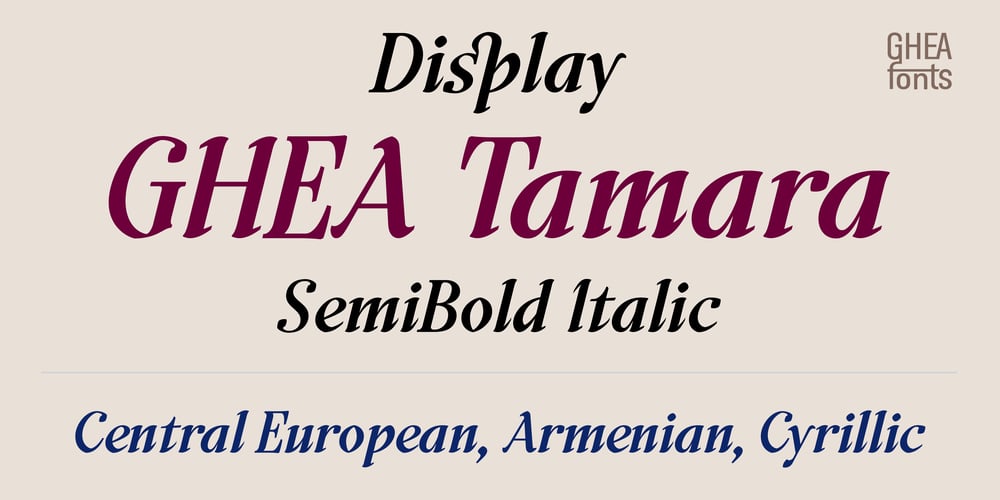
GHEA Tamara
GHEA Tamara font
GHEA Tamara Font Family was designed by Edik Ghabuzyan and published by Edik Ghabuzyan. GHEA Tamara contains 1 styles and family package options. This SemiBold Italic original Display font GHEA Tamara includes Basic Latin, Latin 1 Supplement, Latin extended A, Cyrillic, Armenian.May be used in titles, posters, labels, etc. The font looks very nice in large sizes.